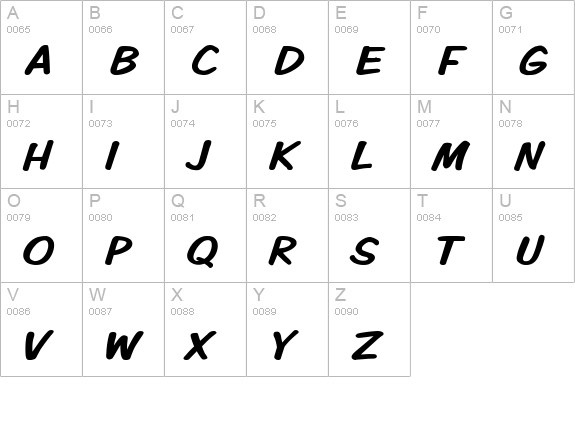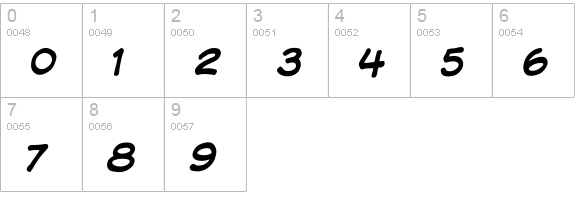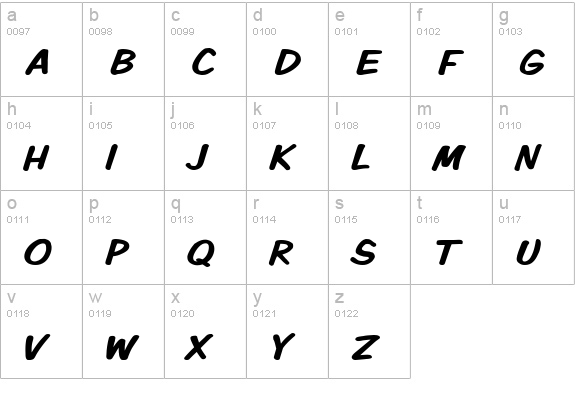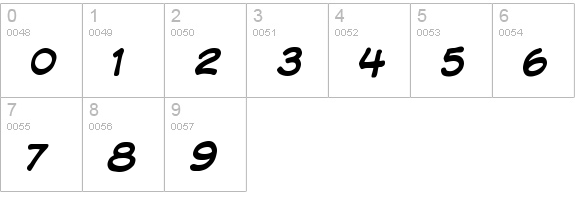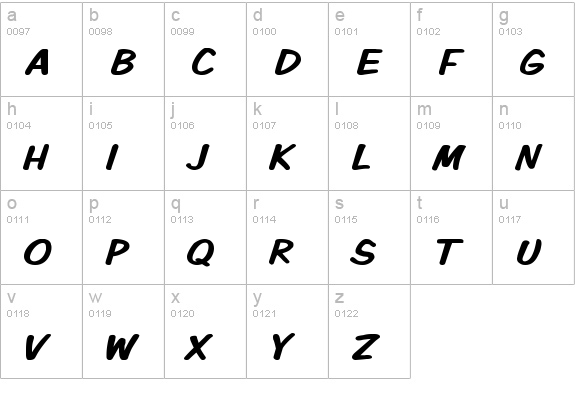
VTCKomixationSC Font Details
Introducing VTCKomixationSC, a captivating and dynamic font that will inject an extra dose of playfulness into your designs. This font effortlessly combines the elements of comic book style with a modern twist, making it a perfect choice for those looking to create eye-catching and vibrant designs. VTCKomixationSC is not only visually appealing but also highly versatile. Its bold and energetic letterforms are suitable for a wide range of creative projects, including posters, logos, comic books, children's books, advertisements, and more. With its unique character shapes and lively personality, this font is sure to grab attention and leave a lasting impression. One of the best features of VTCKomixationSC is that it is available for free! You can easily download this font at FontsMarket.com, a trusted source for high-quality fonts. Whether you're a professional designer or a hobbyist, having access to free fonts like VTCKomixationSC allows you to explore your creativity without any limitations. It's a fantastic opportunity to add a touch of excitement and whimsy to your designs, without breaking the bank. Designed with utmost precision and attention to detail, VTCKomixationSC offers a wide range of uppercase and lowercase letters, numbers, punctuation marks, and even special characters. This extensive character set ensures that you have all the tools you need to create captivating and visually appealing designs. So why wait? Unleash your creativity with VTCKomixationSC and let your designs stand out from the crowd. Download this font for free at FontsMarket.com and embark on a journey of unlimited artistic possibilities. Don't miss out on this amazing opportunity to add a touch of fun and excitement to your projects. Get your hands on VTCKomixationSC today and let your imagination run wild!